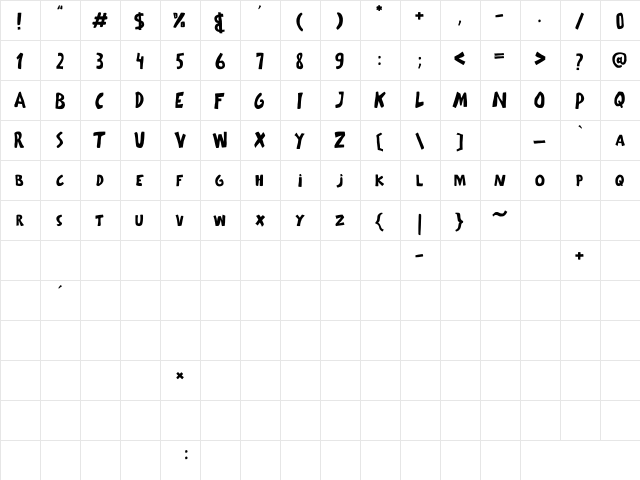
Space Garden Regular
Regular ·  Ade Santani ·
DesignerAde Santani
Design Context for Space Garden Typeface
Space Garden is a composed and adaptable typeface that performs quietly and consistently across a wide range of design contexts.